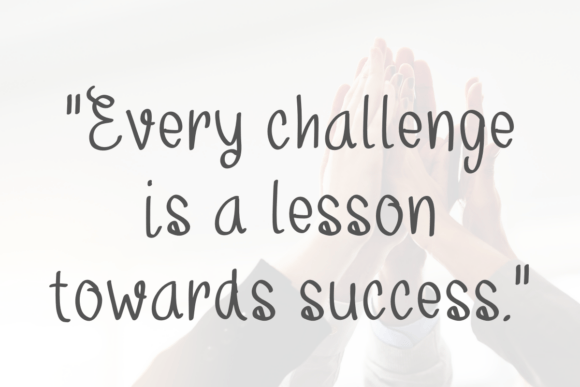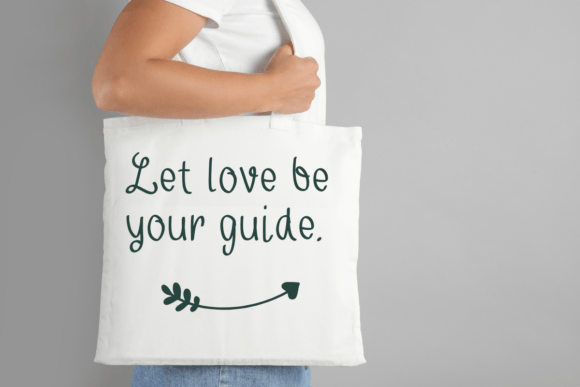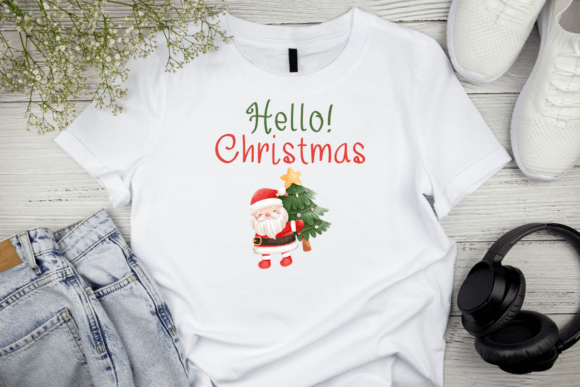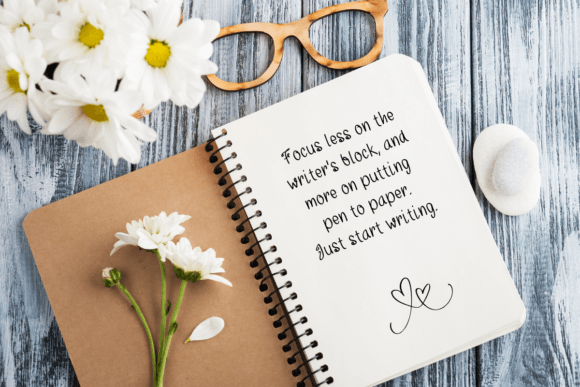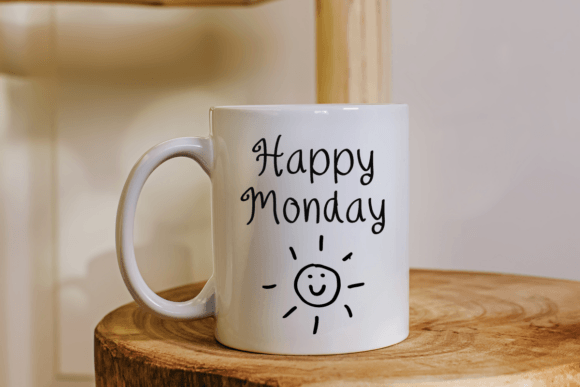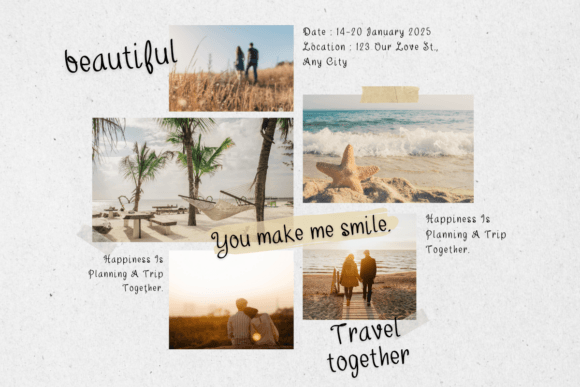
Aroma Butter Font: The Perfect Handwritten Font for Digital Note-Taking and Creative Projects
In the world of digital design, the right font can make all the difference in creating visually appealing and effective content. For designers, crafters, and digital enthusiasts, finding the perfect font for their projects can be a daunting task. However, if you’re looking for a handwritten font that’s perfect for digital note-taking and various creative projects, look no further than Aroma Butter Font.
What is Aroma Butter Font?
Aroma Butter Font is a beautiful, handwritten font that’s designed to add a personal touch to your digital creations. Its unique and elegant style makes it perfect for a wide range of projects, from digital note-taking to creative designs. Whether you’re a designer, crafter, or simply someone who loves to create digital content, Aroma Butter Font is an excellent choice.
One of the standout features of Aroma Butter Font is its versatility. This font can be used for various projects, including:
- Procreate designs: Add a personal touch to your Procreate artwork with Aroma Butter Font.
- Blog posts: Use Aroma Butter Font to add a unique and elegant style to your blog posts.
- Logos and branding: Create stunning logos and branding materials with Aroma Butter Font.
- Digital planners: Design beautiful digital planners that are both functional and visually appealing.
- Invitations and greeting cards: Create personalized invitations and greeting cards with Aroma Butter Font.
- Photo albums: Add a personal touch to your digital photo albums with Aroma Butter Font.
Why Choose Aroma Butter Font?
So, why should you choose Aroma Butter Font for your next project? Here are just a few reasons:
- Unique style: Aroma Butter Font has a unique and elegant style that’s sure to stand out.
- Easy to read: The font is easy to read, making it perfect for digital note-taking and other projects where readability is important.
- Versatile: Aroma Butter Font can be used for a wide range of projects, from digital designs to print materials.
- High-quality: The font is of high quality, ensuring that your projects look professional and polished.
Tips for Using Aroma Butter Font
To get the most out of Aroma Butter Font, here are a few tips:
- Experiment with different sizes: Aroma Butter Font looks great in various sizes, so don’t be afraid to experiment to find the perfect size for your project.
- Pair with other fonts: Aroma Butter Font pairs well with other fonts, so try combining it with other fonts to create a unique look.
- Use it for headings and body text: Aroma Butter Font is suitable for both headings and body text, making it a great choice for a wide range of projects.
In conclusion, Aroma Butter Font is a beautiful, handwritten font that’s perfect for digital note-taking and various creative projects. Its versatility, unique style, and high-quality design make it an excellent choice for designers, crafters, and digital enthusiasts. Whether you’re looking to create stunning Procreate designs, blog posts, logos, or digital planners, Aroma Butter Font is sure to impress.